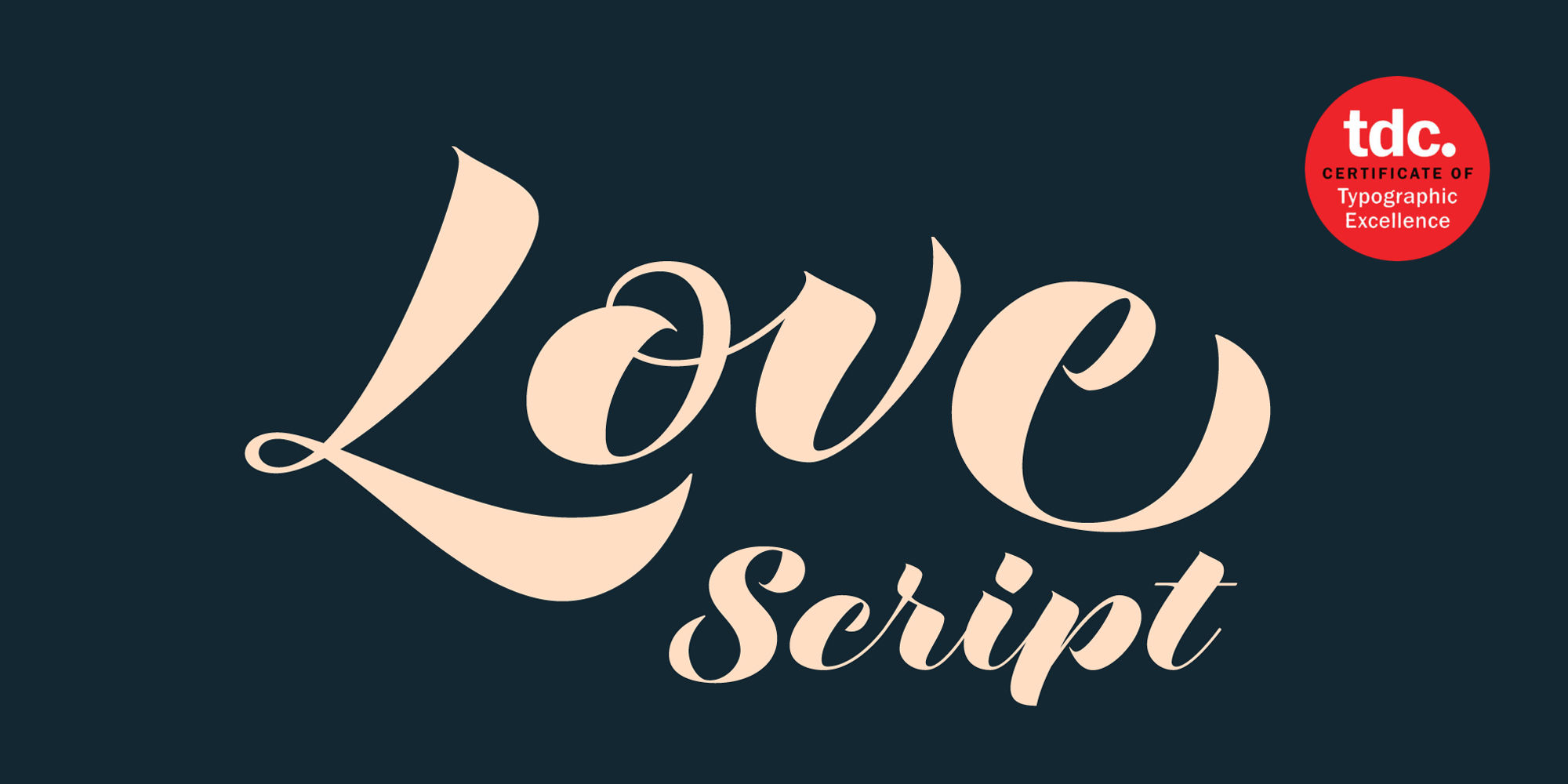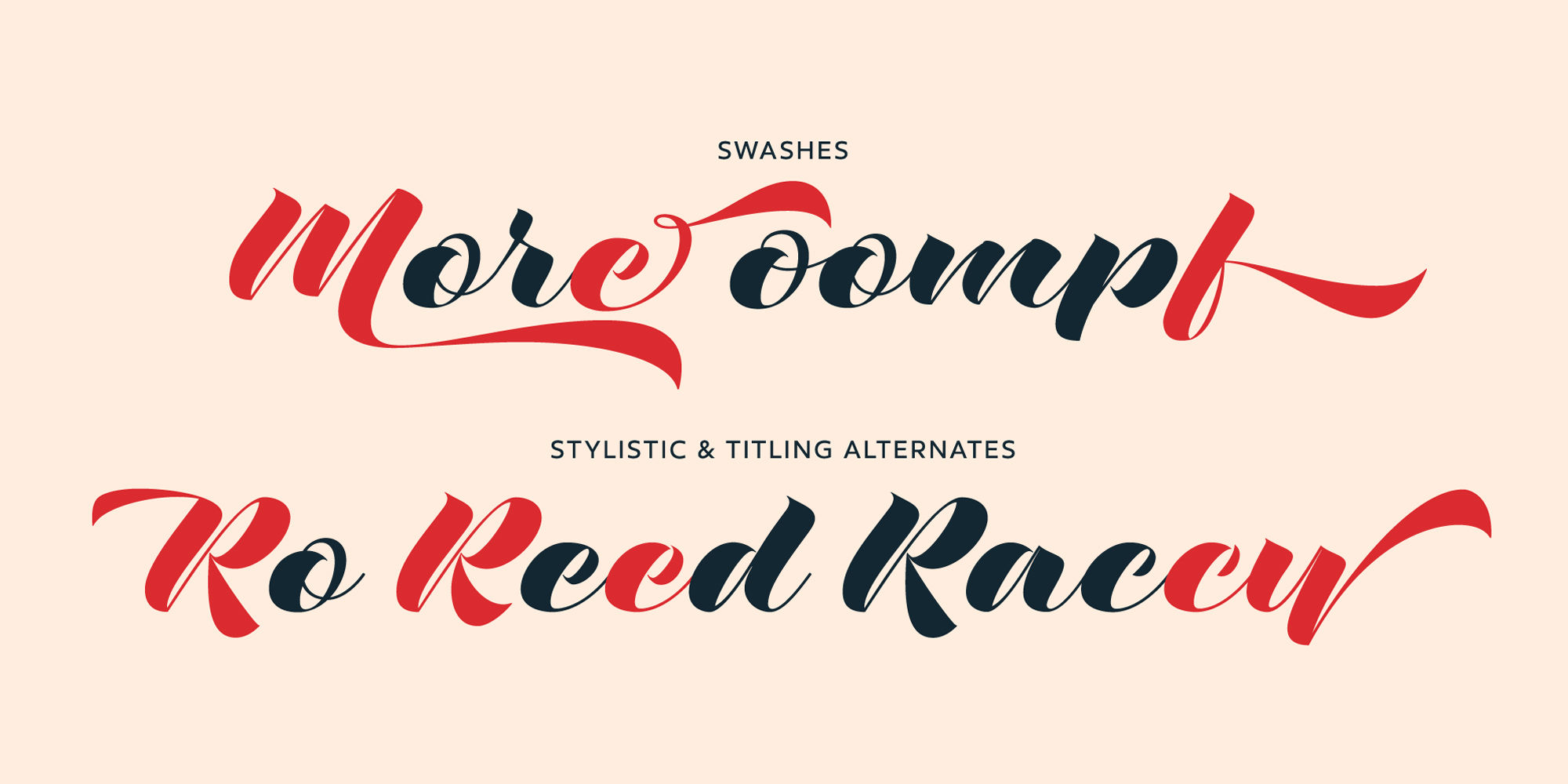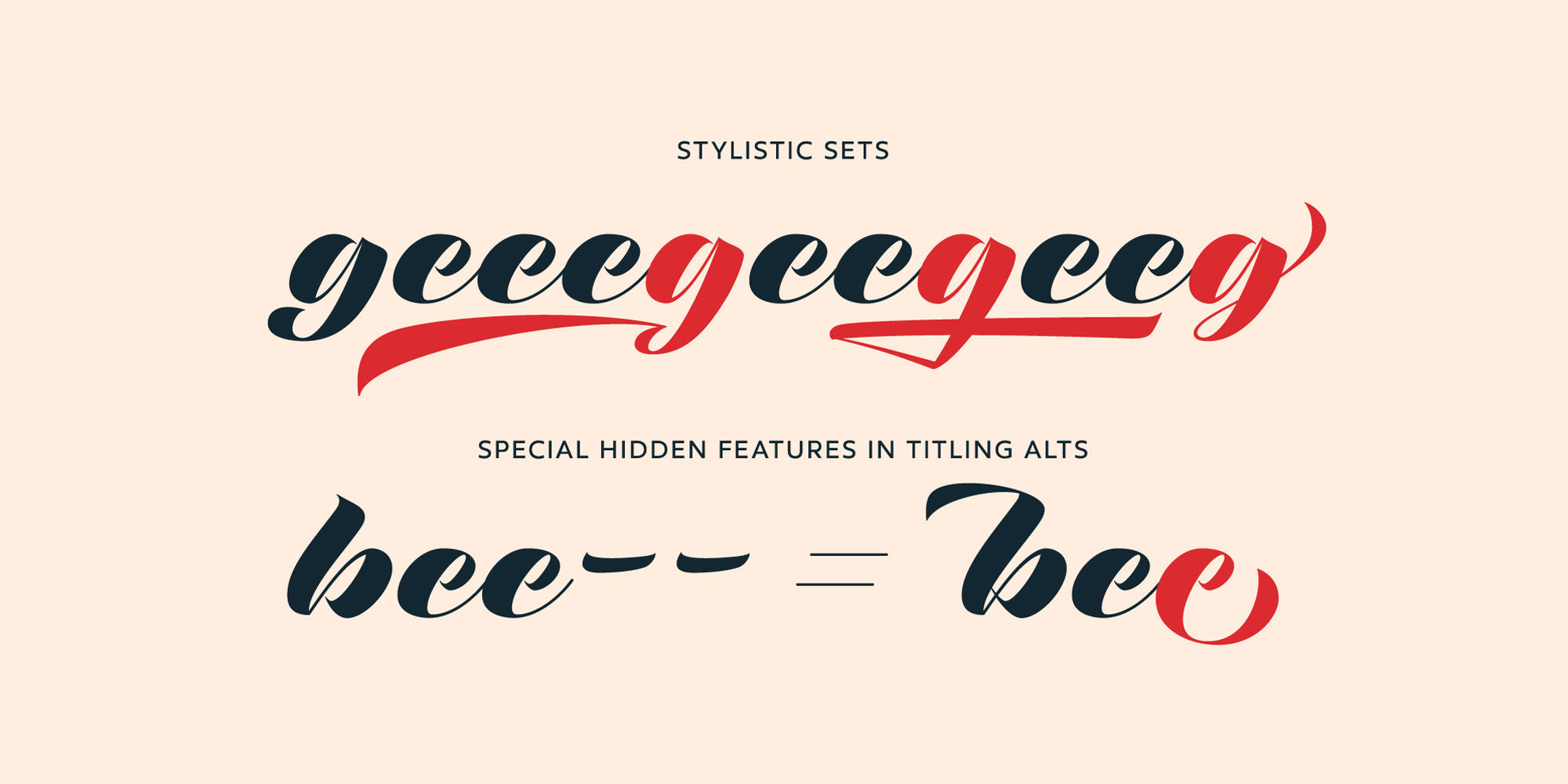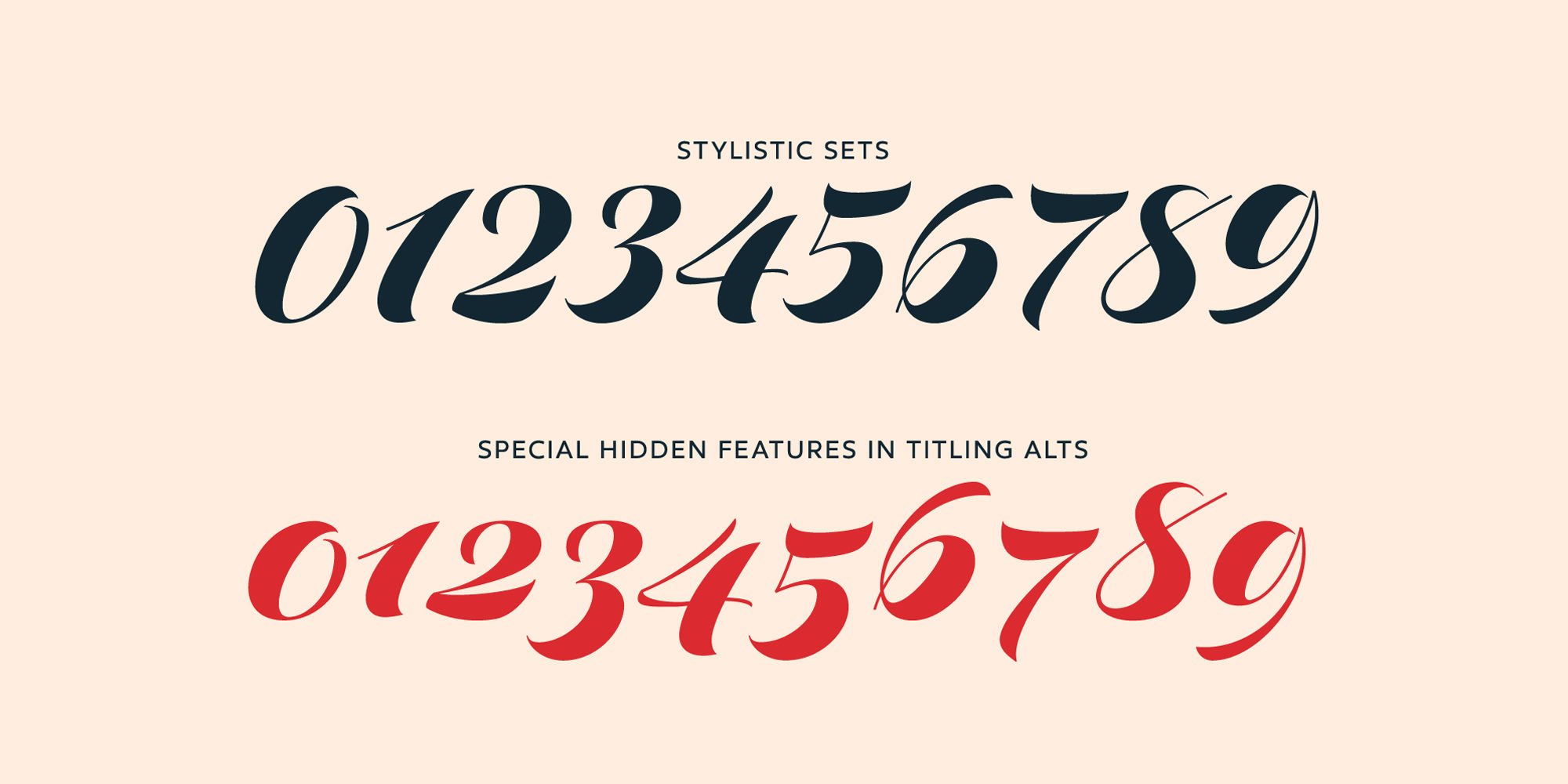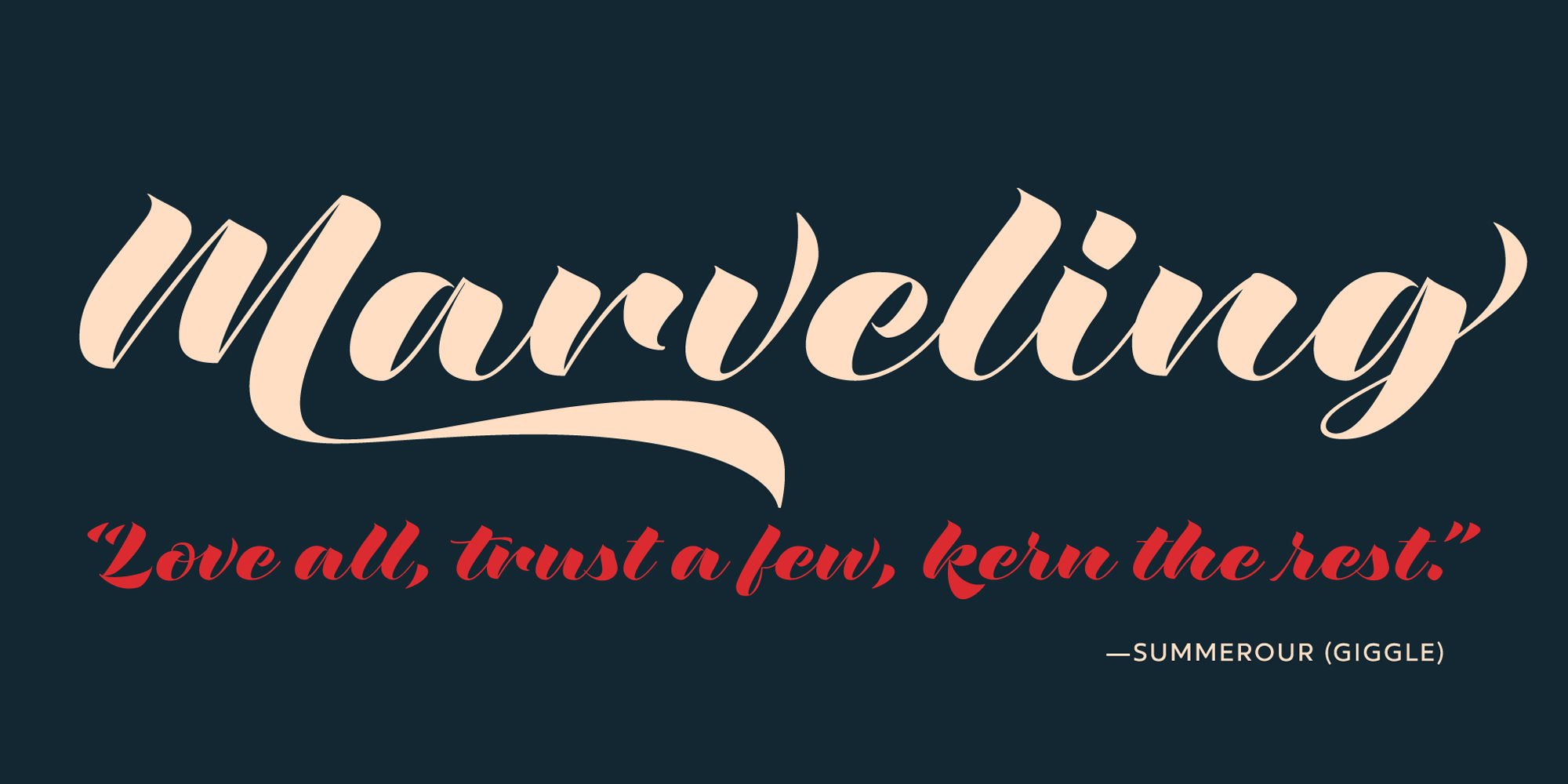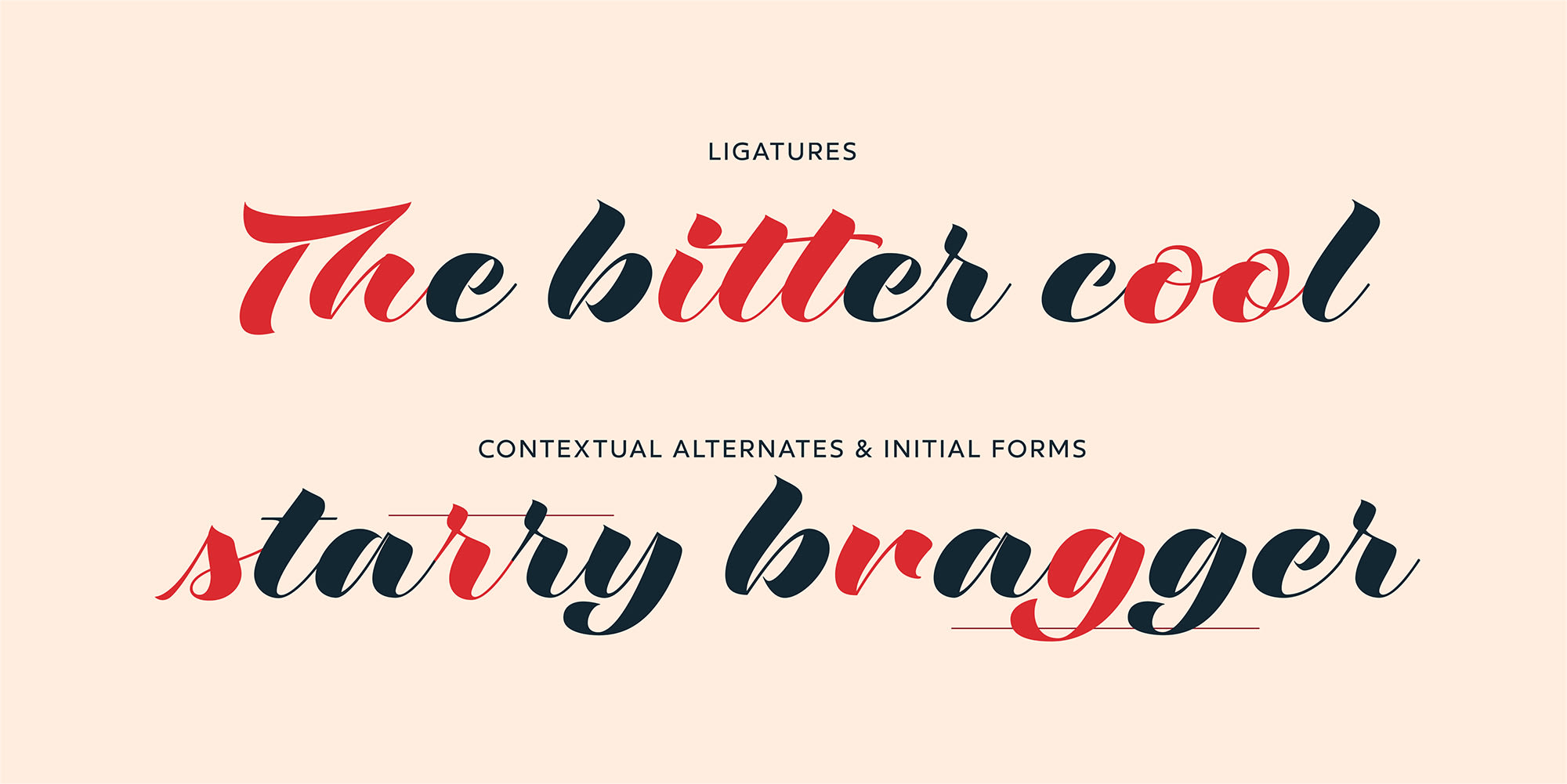
Love Script
Initial Release:2014
Swashswsh
Titling Alternatestitl
Stylistic Alternatessalt
Oldstyle Numeralsonum
Stylistic Set 1ss01
Stylistic Set 2ss02
Stylistic Set 3ss03
Love Script came about as a way to finally answer the requests by individuals to take my brush pen/marker lettering styles and turn them into a typeface. Literally, everything lined up perfectly and there was a renewed impetus to push this genre, this style of lettering I have adapted over the years into what will become a series of brush pen/marker typefaces. The first I chose to complete was a high-contrast variant… I seem to be attracted to high contrast, high energy letters (think Lust, Lust Slim and Lust Script). As I was finalizing everything, I kept saying ‘I love this script’, which ultimately led the christening of the typeface as Love Script.